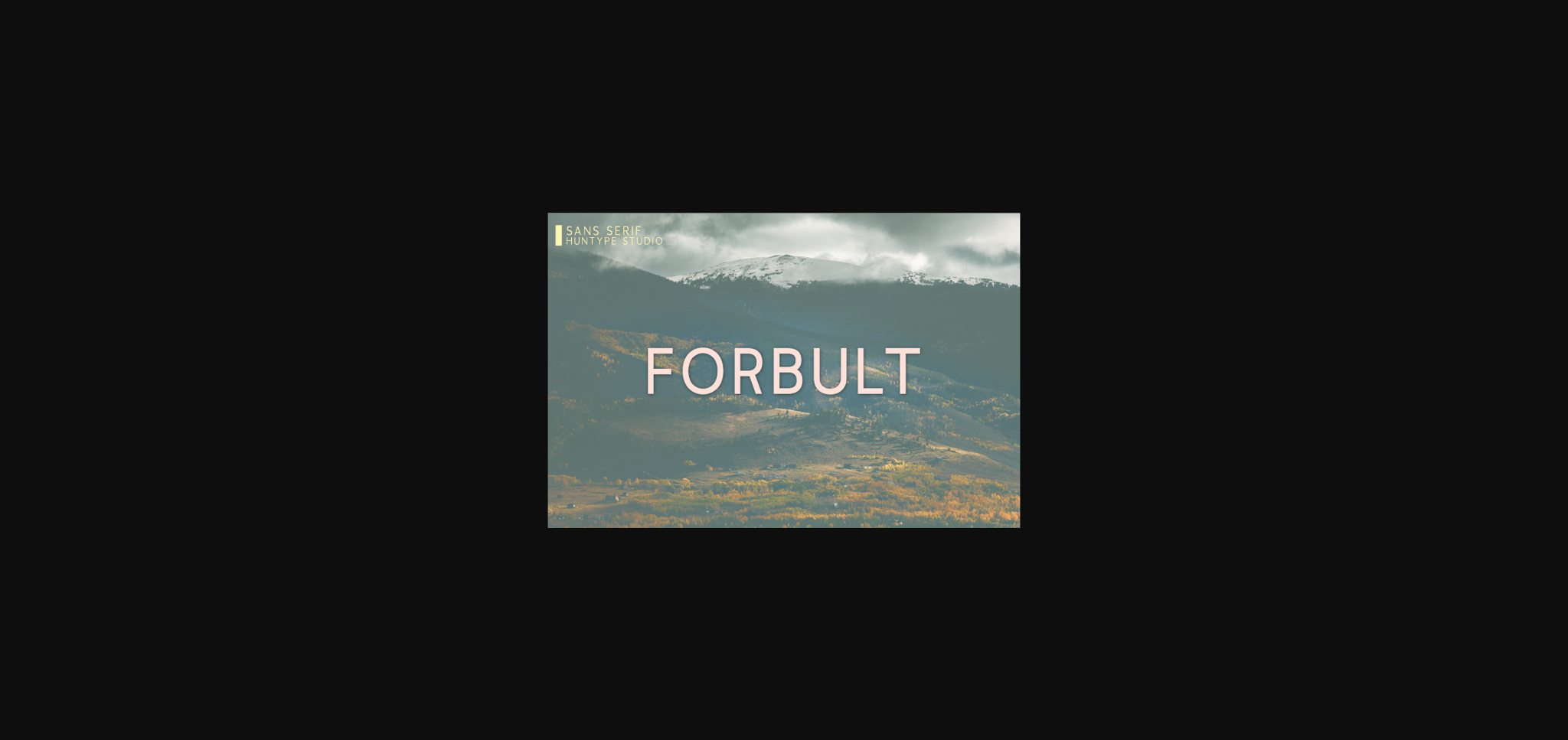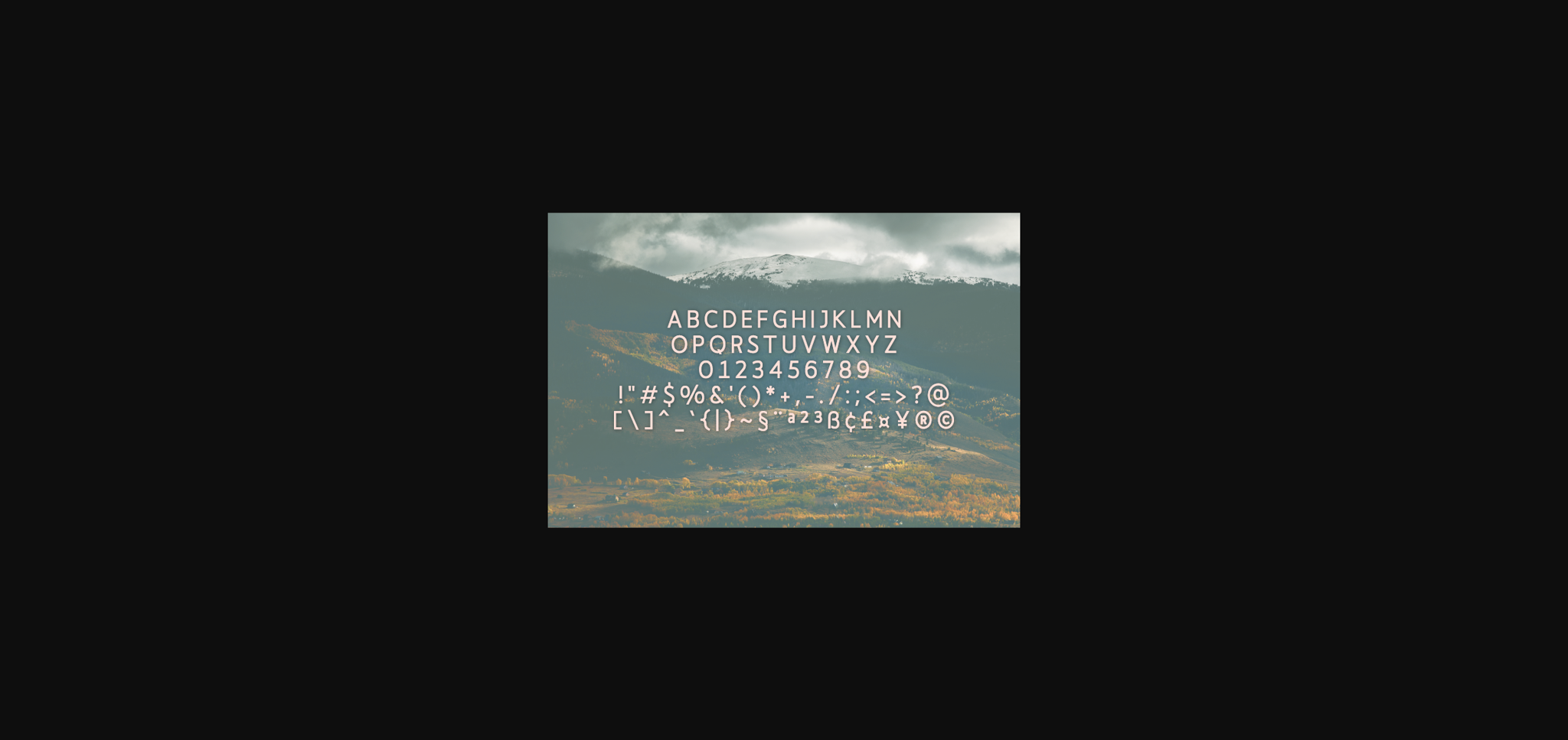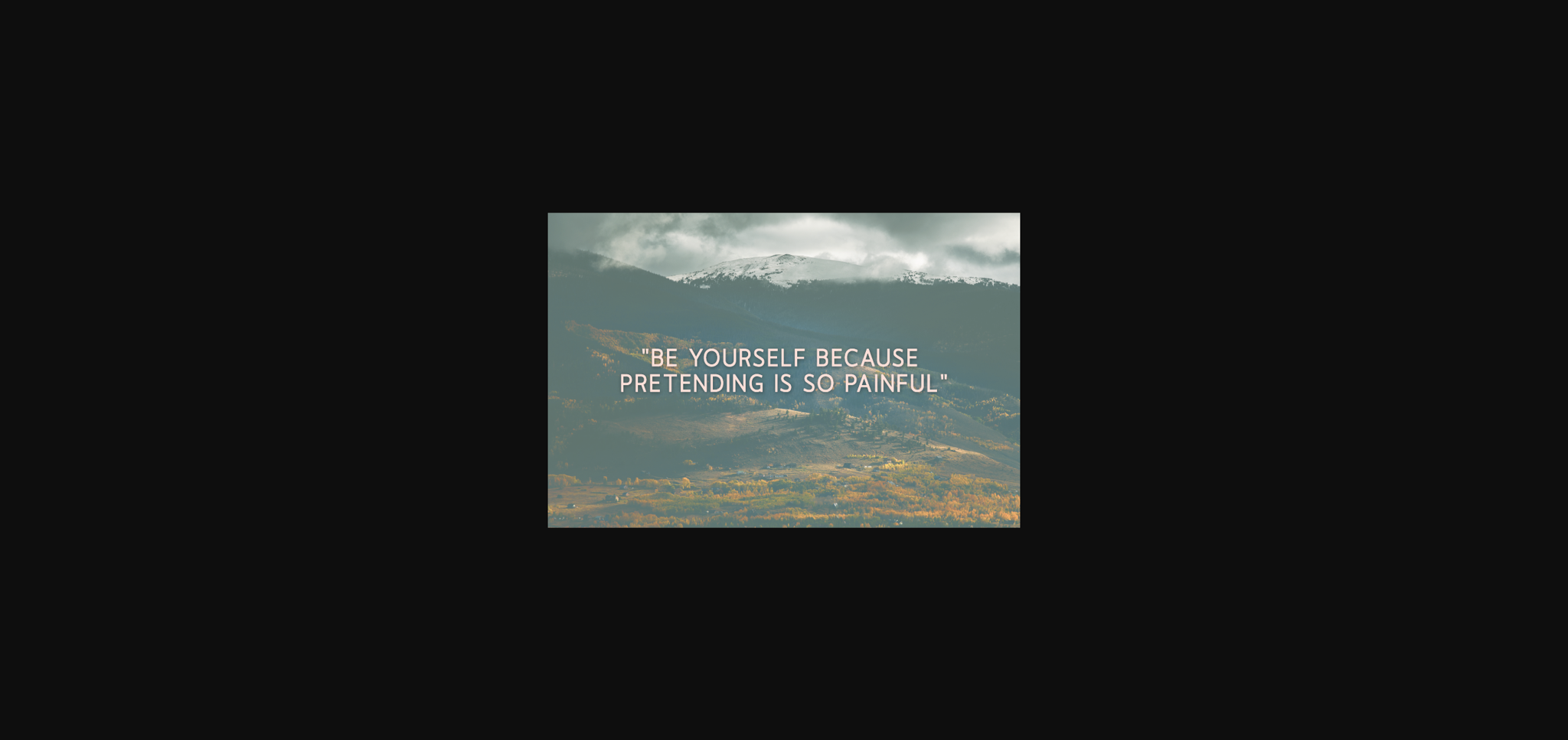
Forbult is a stylish and delicate sans serif font. It has a clean, neat and smooth vibe and it will be a hit for any design that you want to add it to.